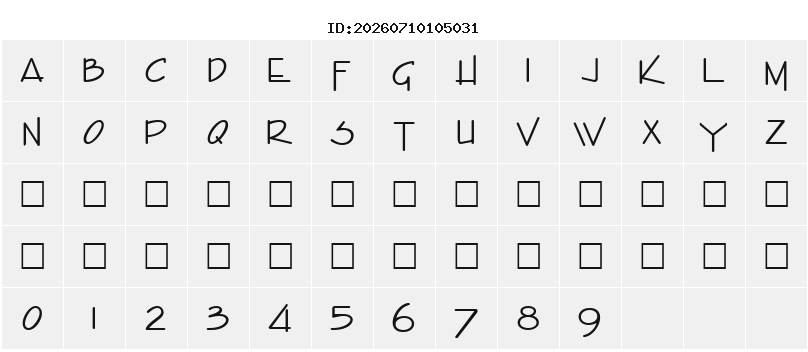
Eco Preview
• Font Name: Eco
• Full Font Name: Eco
About Eco.ttf
Eco.ttf is a modern, elegant sans-serif font designed for ultimate readability and visual harmony. Perfect for branding, headlines, web design, and print materials.